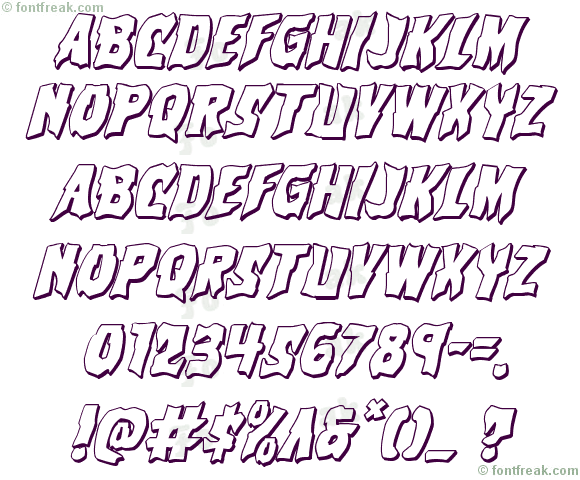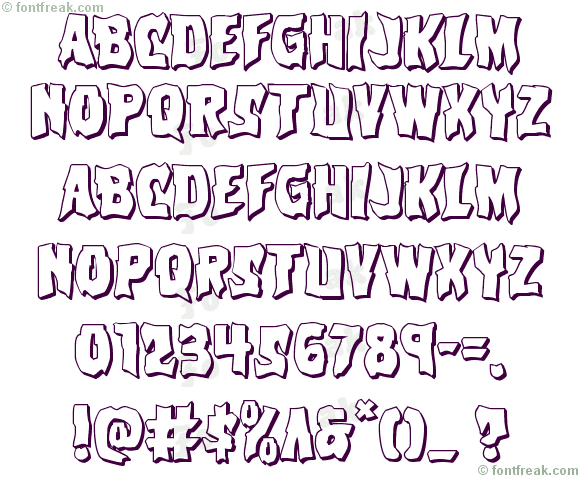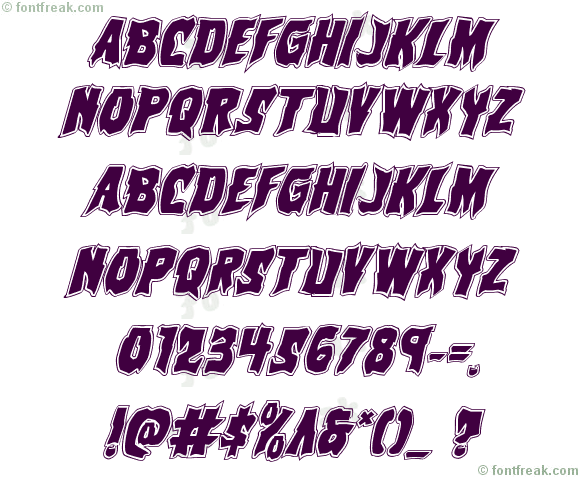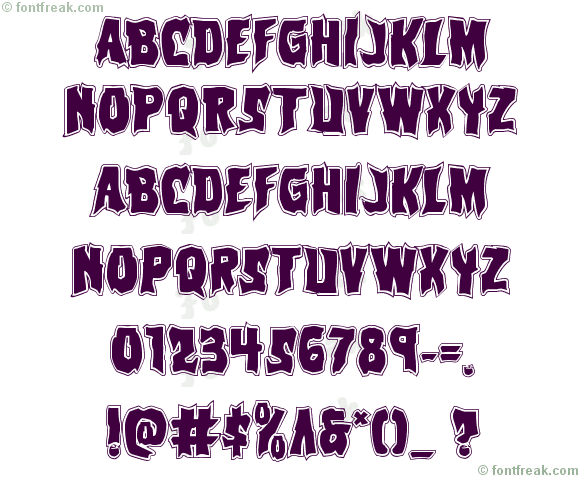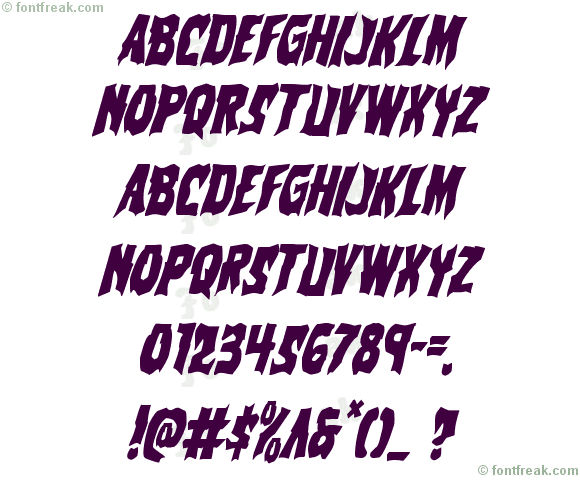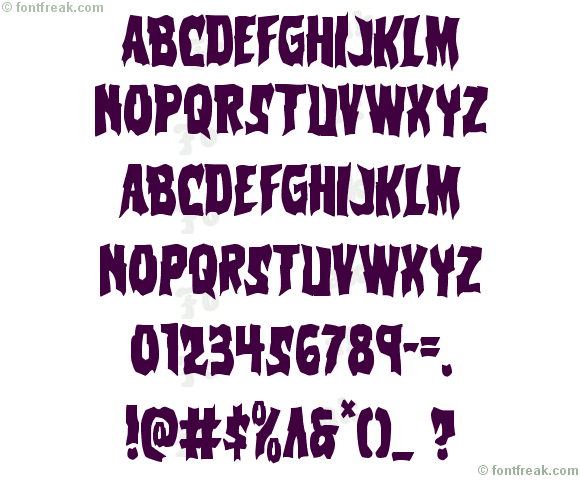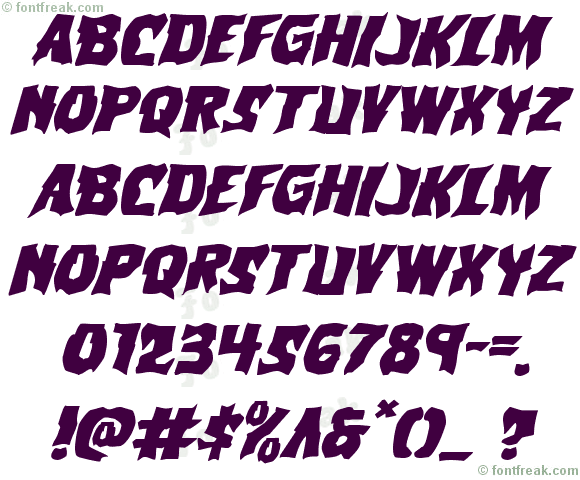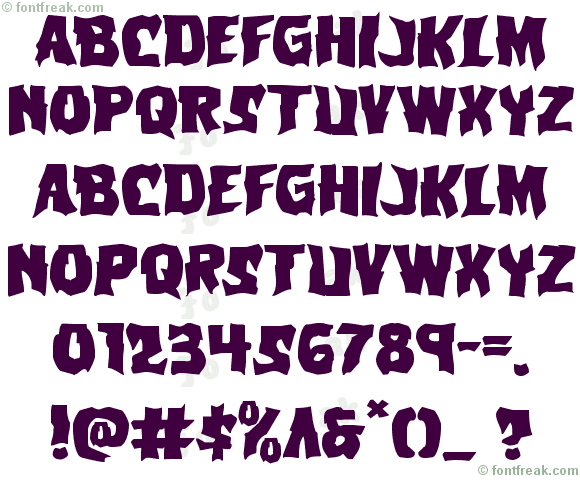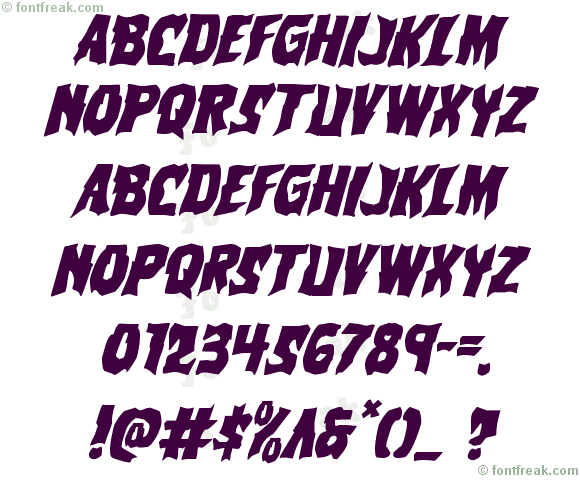
The Vorvolaka Staggered font, designed by Daniel Zadorozny, is an eye-catching display typeface that falls within the decorative category. With its unique, staggered letterforms, this font captures attention and adds a playful yet bold character to any design project. The strokes are irregular, featuring varying weight and a slight italic slant that enhances its dynamic appearance. The letters are spaced in a way that creates a sense of movement, making it ideal for designs that aim to stand out.
This font is particularly well-suited for use cases such as movie posters, where dramatic flair is essential; event flyers that need to grab attention; merchandise designs that require a distinctive look; and promotional materials for creative events. The playful nature of Vorvolaka Staggered also lends itself well to branding for kids’ products or services, capturing the imagination of both children and adults alike.
Target audiences for this font include graphic designers looking to inject personality into their projects, small business owners aiming to create memorable brand identities, and content creators seeking unique typography for social media graphics or blogs. The font's versatility allows it to fit various themes and styles, further enhancing its appeal.
What truly sets the Vorvolaka Staggered font apart is its ability to convey a sense of fun and creativity while remaining legible. The combination of its striking visual characteristics and the free nature of its licensing makes it an attractive choice for anyone in need of an engaging typeface. Don’t miss out on the chance to elevate your designs with the Vorvolaka Staggered font free download, a perfect addition for those looking to make a lasting impression.